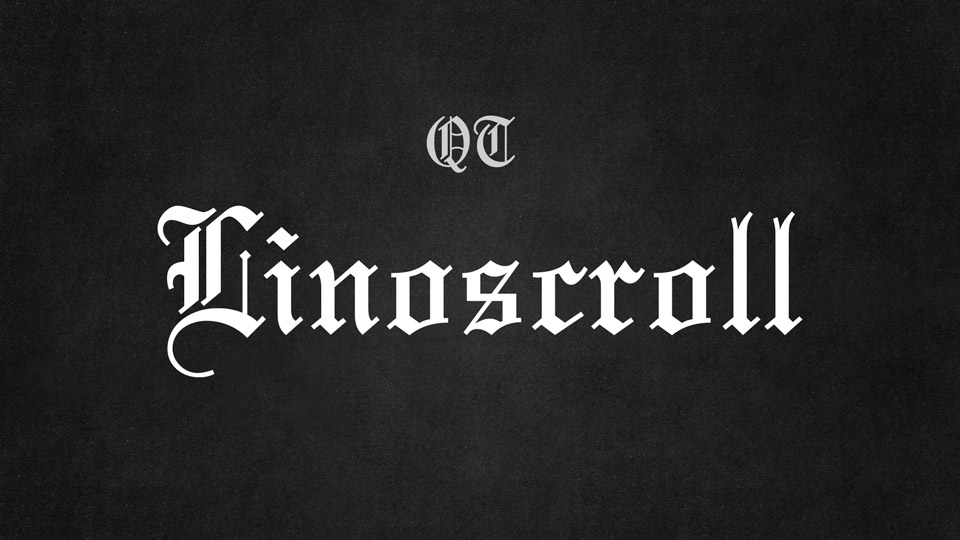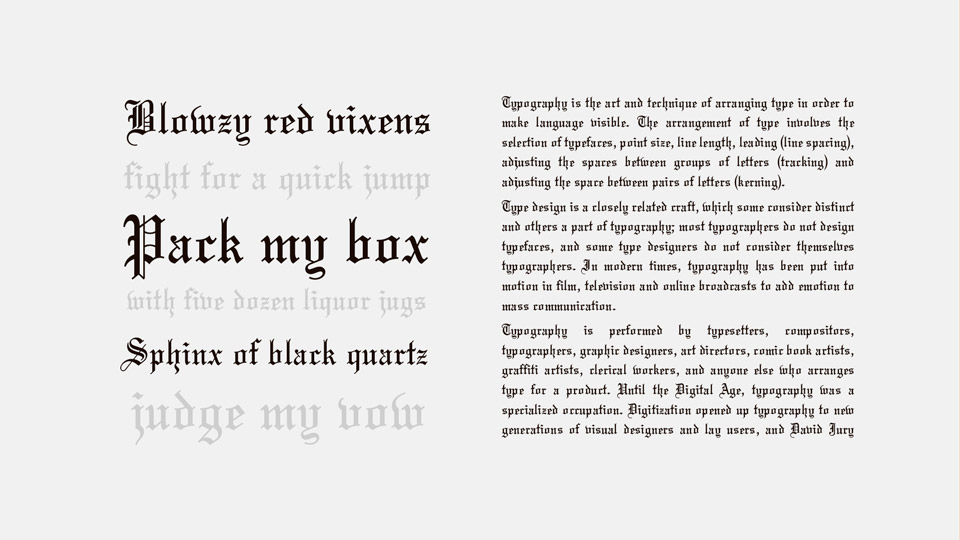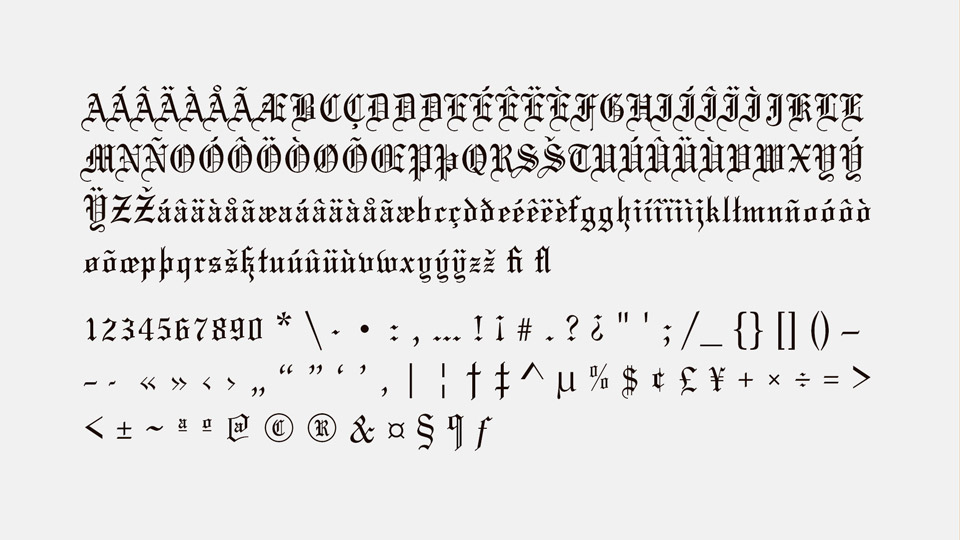
Linoscroll is a classic blackletter font, a sort of Old English type, based on the typeface designed by Morris Fuller Benton in 1901 and first appeared with the name Wedding.
If you want to communicate a feeling of old-world quality or nostalgia, Linoscroll font is the preferred choice – use it on signs, in brochures or on invitation cards, certificates, awards, and newsletter mastheads.